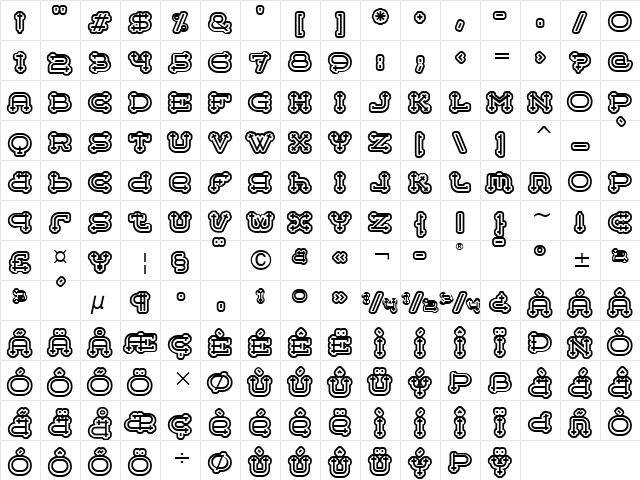
Belter Mega Outline ITC Regular Font Preview
Belter Mega Outline ITC Regular
Belter Mega Outline ITC Regular Font Details
Design Context for Belter Mega Outline ITC Typeface
Belter Mega Outline ITC is built around its visual character rather than neutral utility — its distinctive forms are designed to make an impression at display sizes.
Font Pairing: Pair with a clean neutral sans-serif for body copy to let Belter Mega Outline ITC's character lead without overwhelming the composition.
Pro Tip: Treat Belter Mega Outline ITC as the centrepiece of your typographic hierarchy. One strong heading set in a decorative face can carry an entire layout.